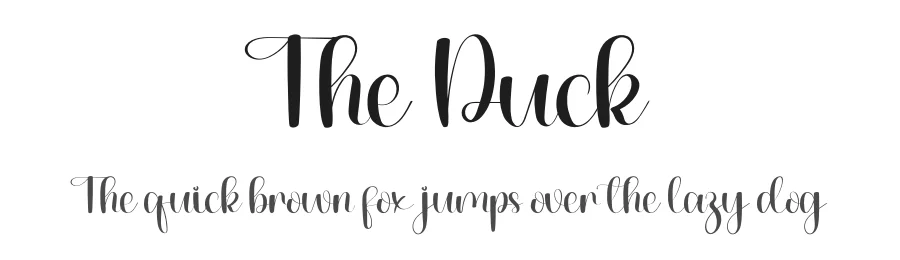
About Rialliata Beautiful Font
Rialliata Beautiful Specifications
| Font Family | Rialliata Beautiful |
| Full Name | Rialliata Beautiful |
| Glyph Count | 277 glyphs |
| PostScript Name | RialliataBeautiful |
| Designer | Nanang Jamaludin |
Rialliata Beautiful supports 222 languages.
Rialliata Beautiful Font is a script font that shines as a display or heading face. Pair it with a clean sans-serif or serif font for body text β the contrast creates a clear hierarchy while the two styles stay balanced and easy to read.